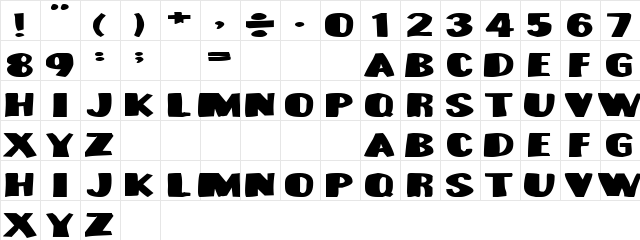
Munster Bash Regular
Design Context for Munster Bash Typeface
Munster Bash is a composed and adaptable typeface that performs quietly and consistently across a wide range of design contexts.
Pro Tip: Pair Munster Bash with a font of contrasting weight or personality to build a more expressive typographic hierarchy.